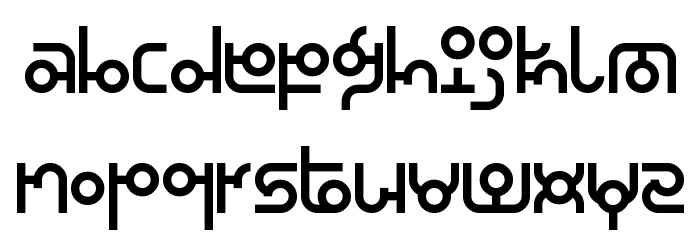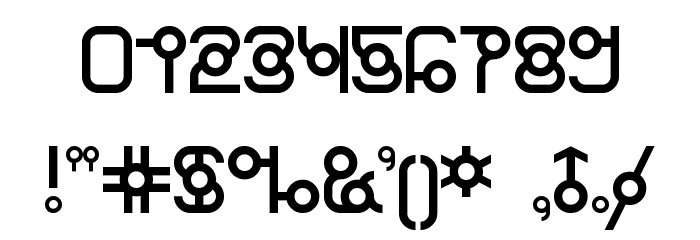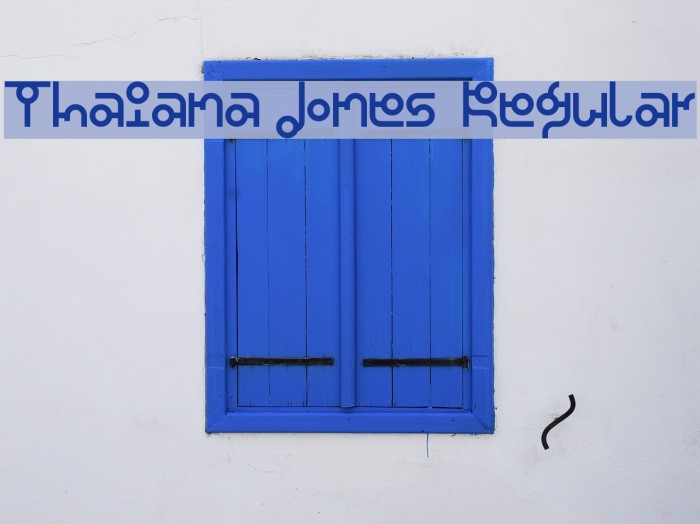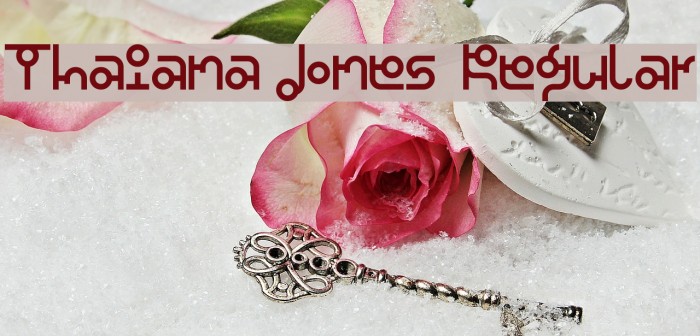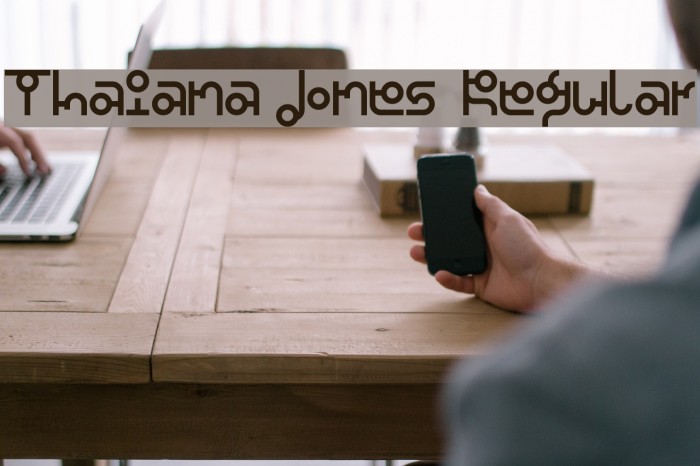
Thaiana Jones Regular Font
This font features a unique and decorative style with rounded, geometric shapes that give it a futuristic and playful appearance. The characters are bold and have a consistent stroke width, creating a uniform look across the alphabet. The design incorporates circular elements and smooth curves, which contribute to its distinct and modern aesthetic. The font is highly stylized, making it ideal for creative projects that require a standout typeface. Its boldness ensures readability while maintaining an artistic flair.
A bold, decorative font with geometric, rounded shapes and a modern aesthetic.
- Proposed Projects: Ideal for branding, posters, video game graphics, and any project seeking a futuristic and playful look.